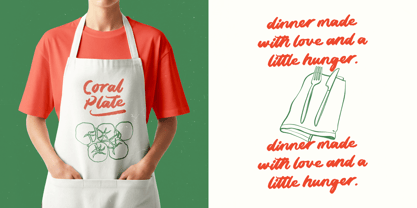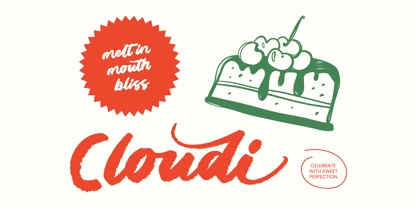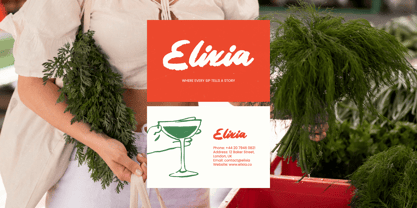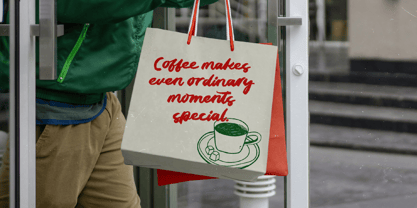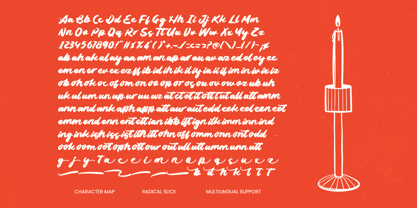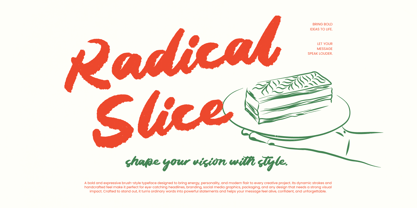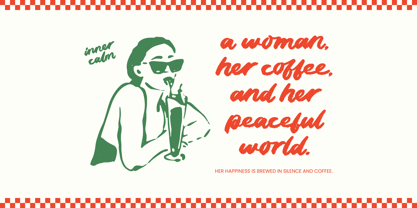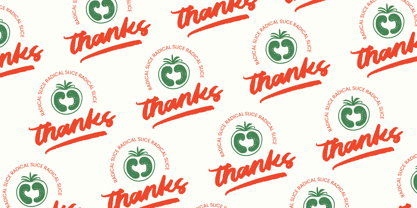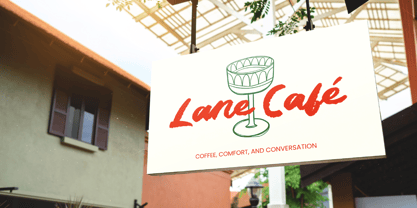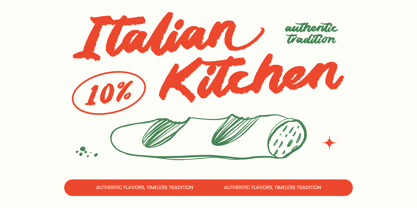
Radical Slice
by Letterena Studios
The Radical Slice Font Family was designed by Heru Utama Putra and published by Letterena Studios. Radical Slice contains 2 styles and family package options. More about this family
Radical Slice - Modern Brush Font
Elevate your creative vision with a typeface that embodies raw energy and artistic flair. Radical Slice - Modern Brush Font is a masterclass in expressive typography, blending hand-drawn brushstrokes with a sharp, contemporary edge. This modern brush font captures a sense of dynamic movement and authentic texture, making it the perfect choice for designers looking to inject bold character into their visual projects.